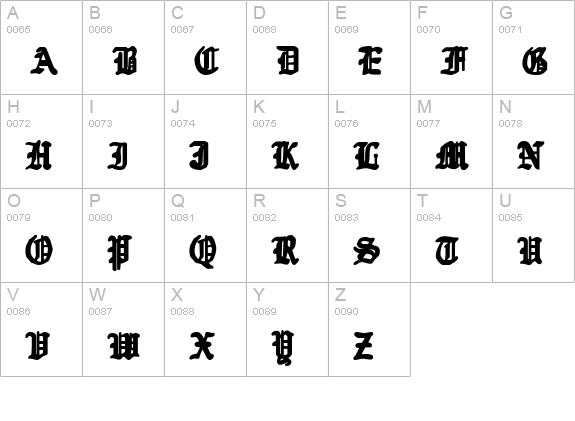
Quest Knight font is a captivating and adventurous typeface that exudes a sense of bravery and valor. Its bold and medieval-inspired letterforms make it perfect for titles, logos, and other design projects that require a touch of mystique and heroism. With its sharp angles and intricate details, Quest Knight font is sure to transport your audience to a world of epic quests and grand adventures. And the best part? Quest Knight font is available for free download at FontsMarket.com! Whether you're a designer looking to add a touch of medieval charm to your work or a writer in need of a unique font for your fantasy novel, Quest Knight font is the perfect choice. Download it today and embark on your own creative journey with this stunning typeface.